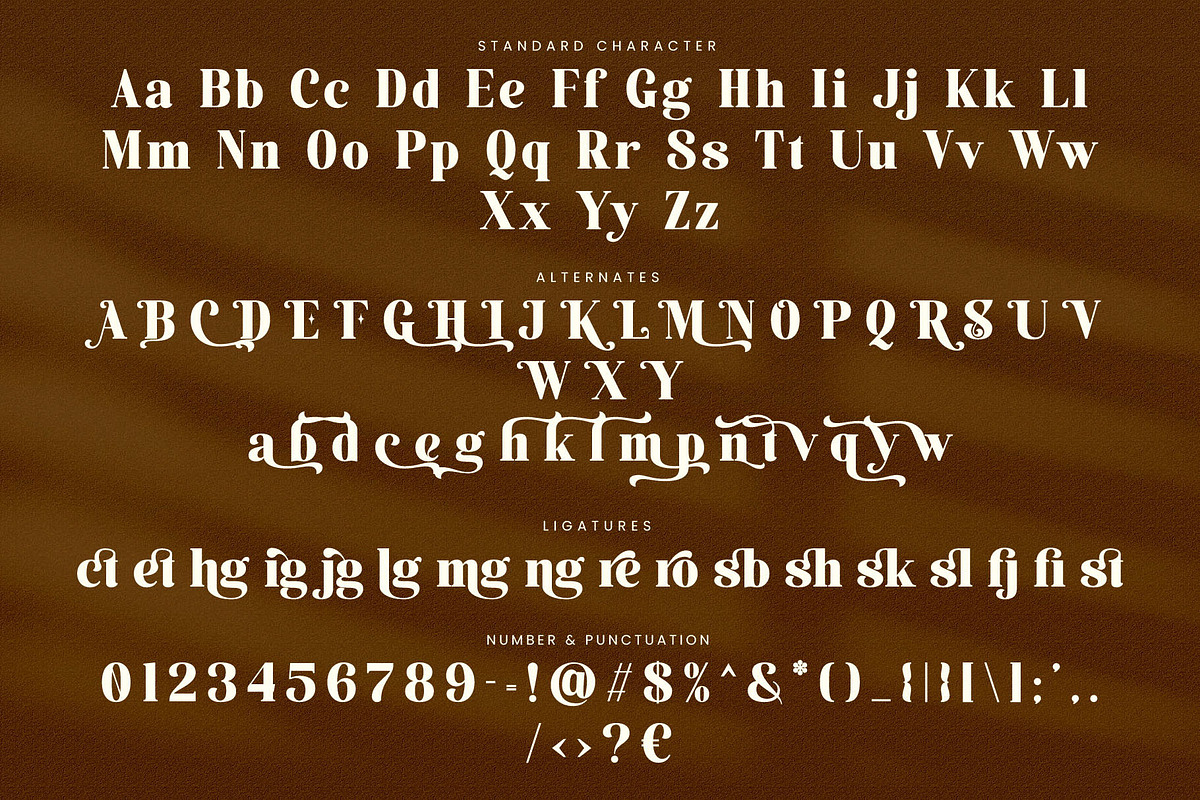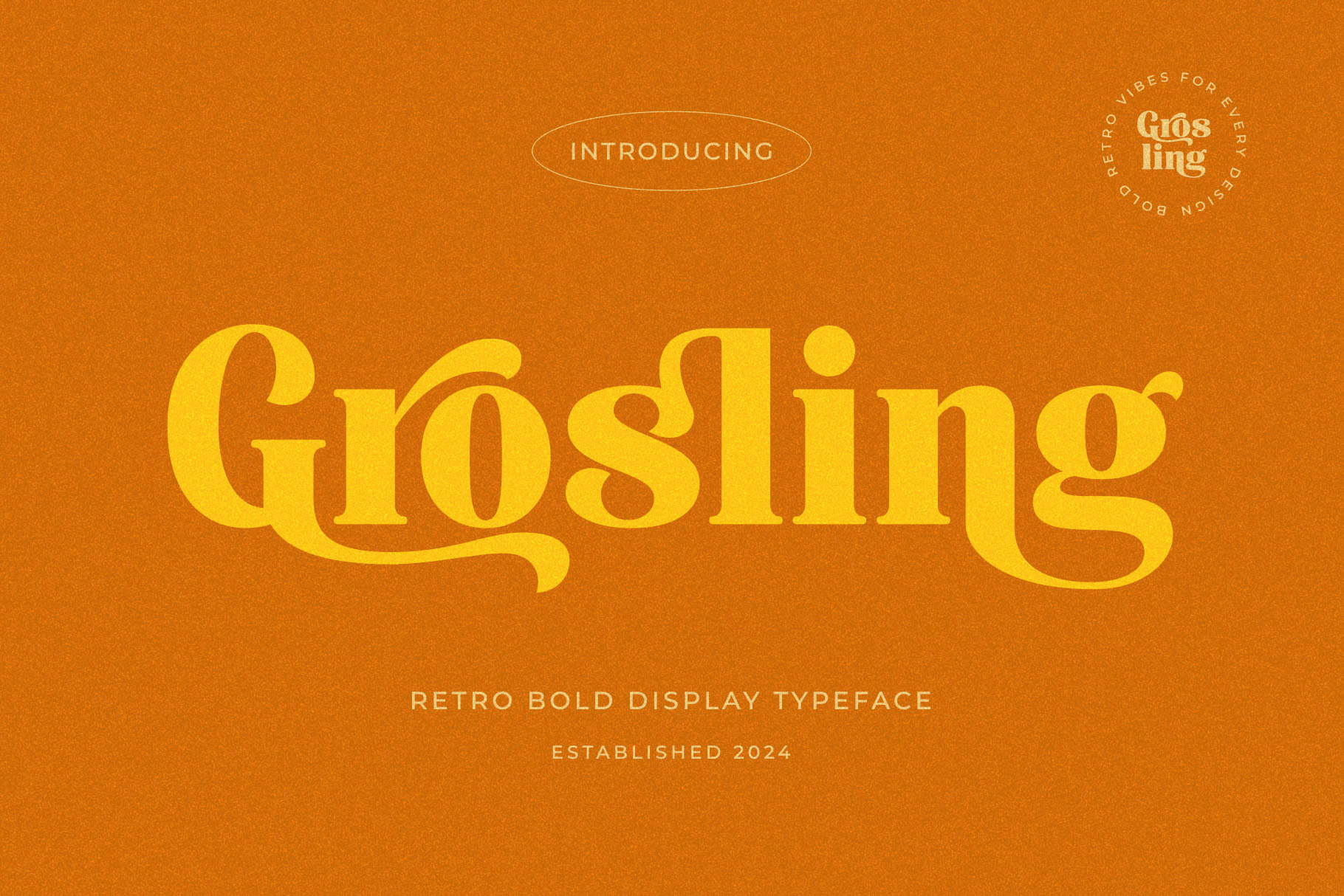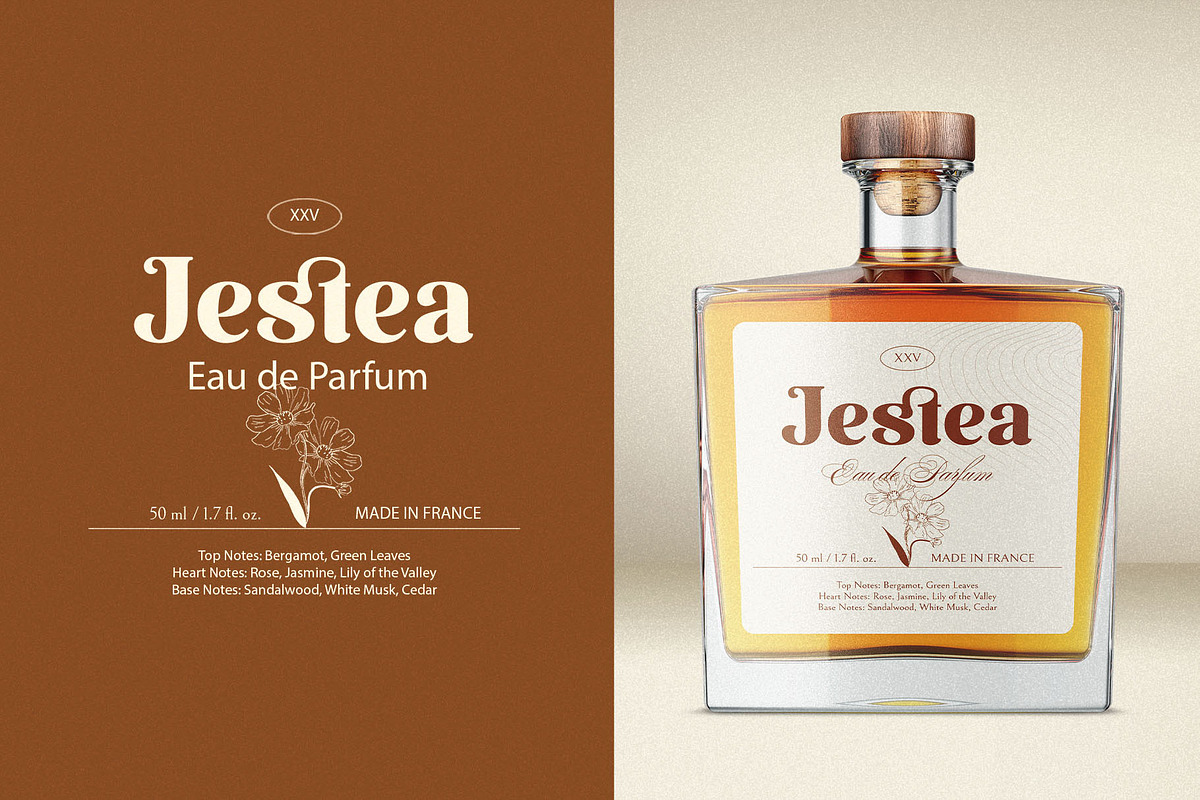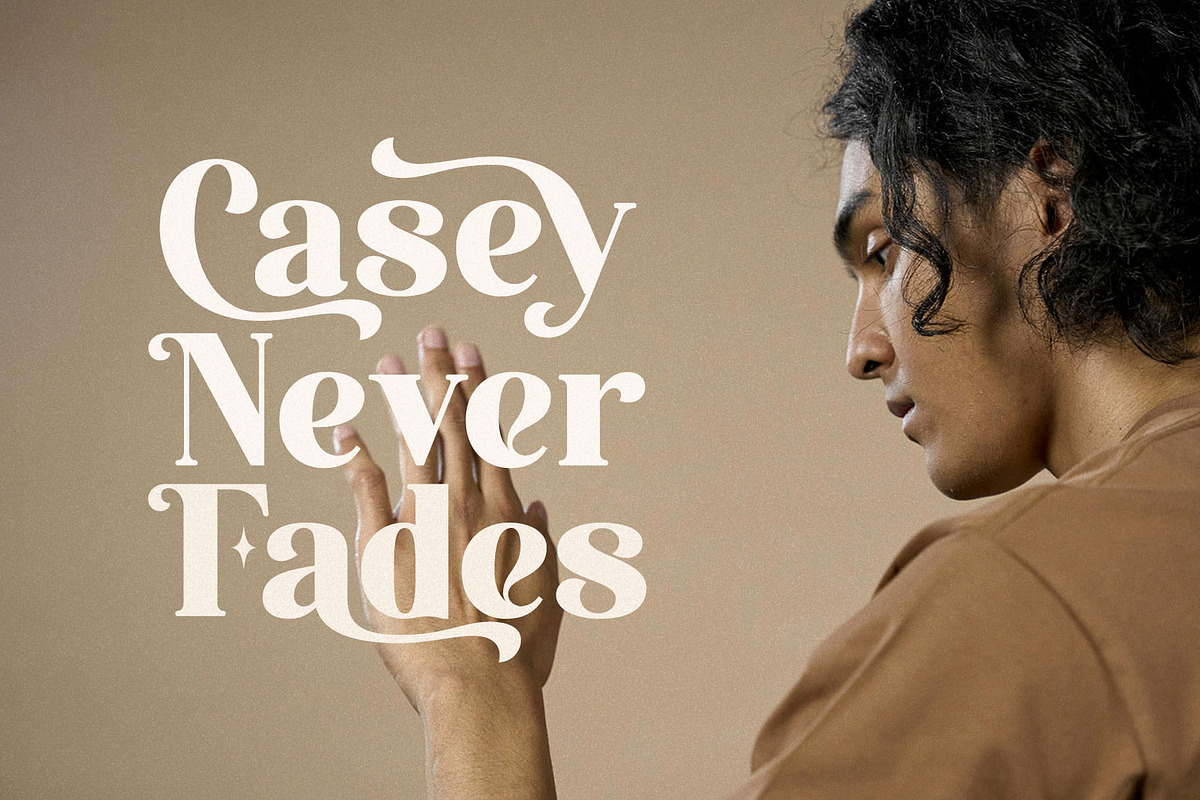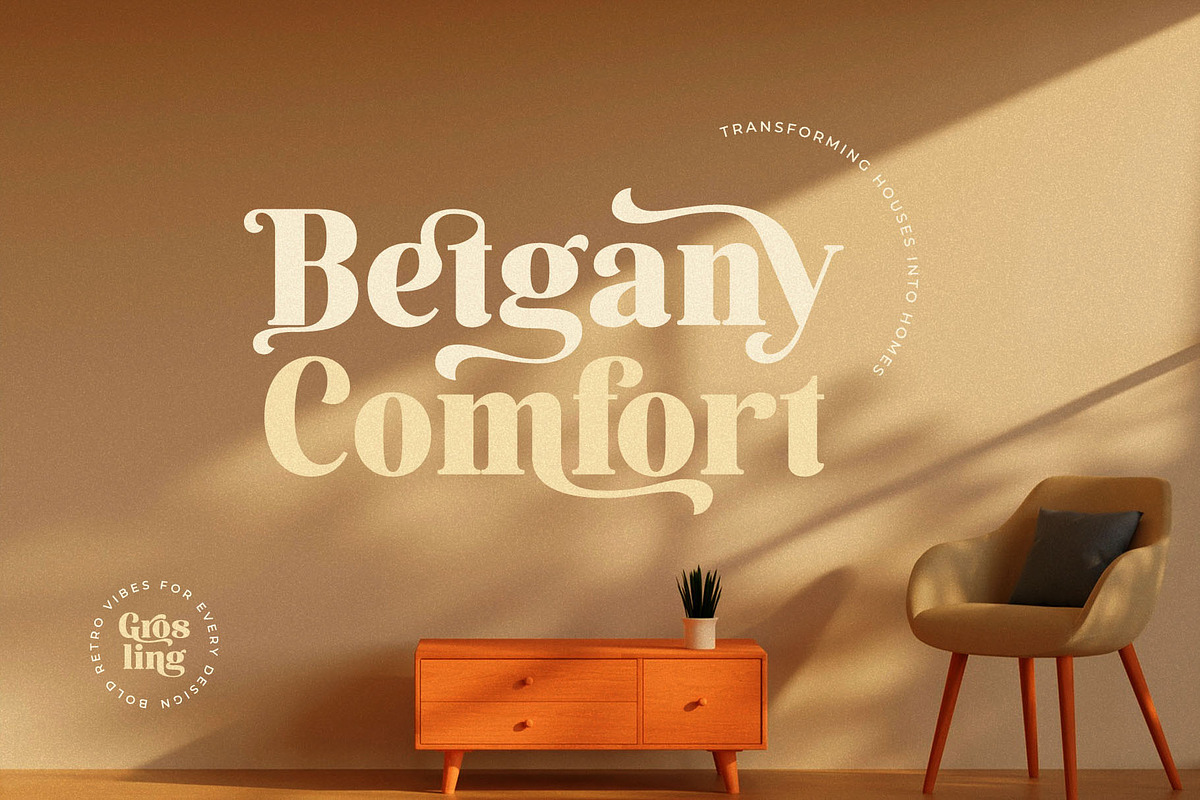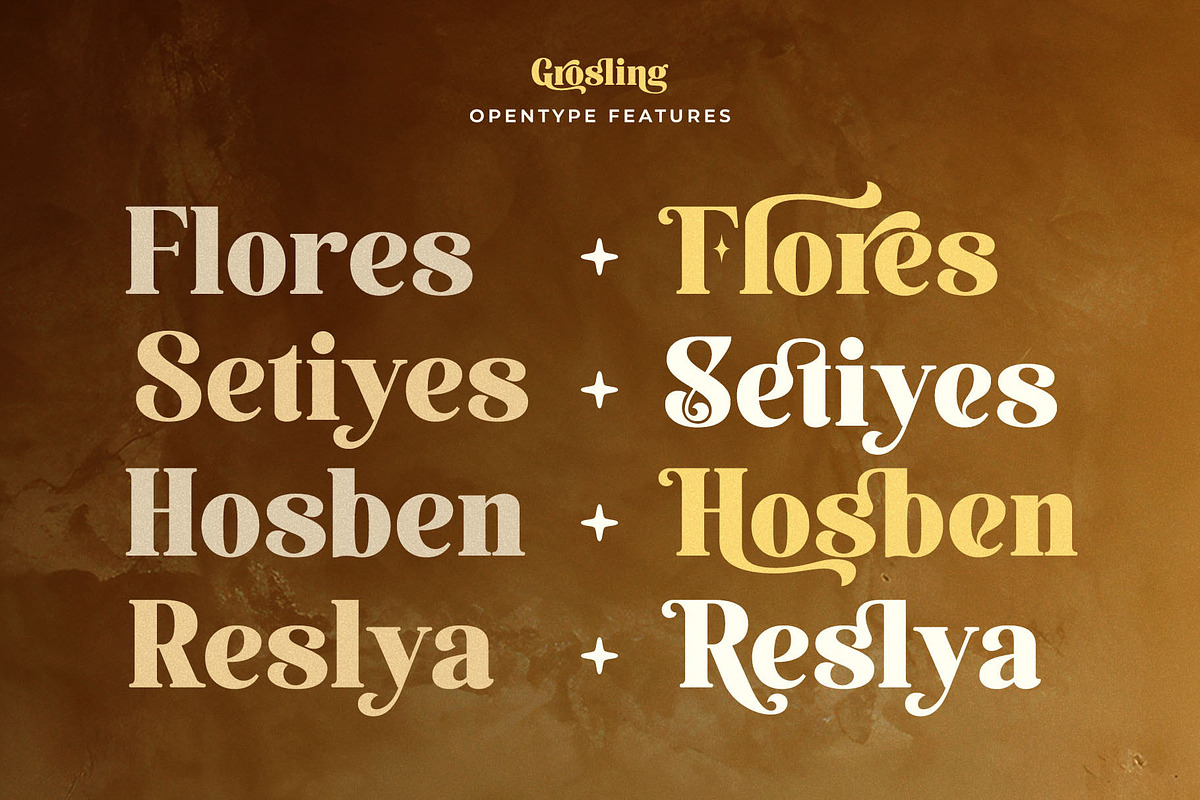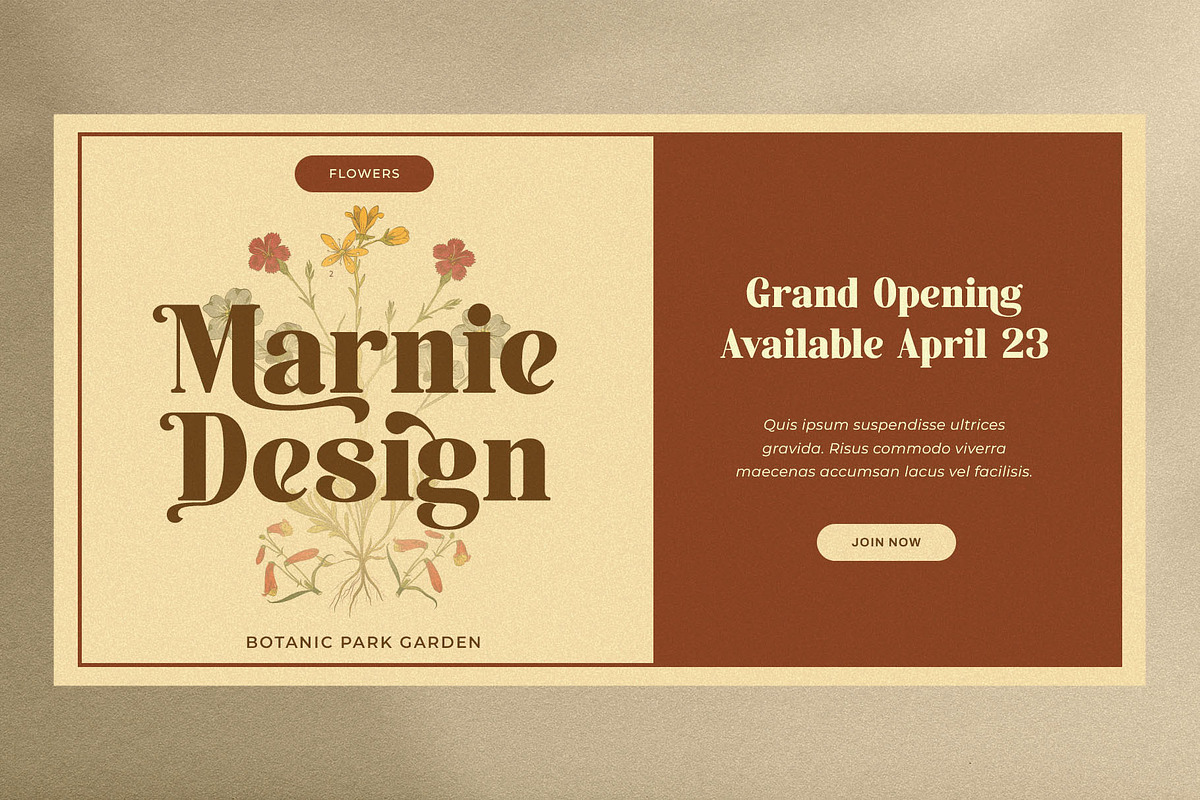
Grosling - Retro Bold Serif Font
Introducing our new "Grosling" unique and modern serif font with elegant style this is perfect for branding, logos, invitation, magazines, product packaging and more.